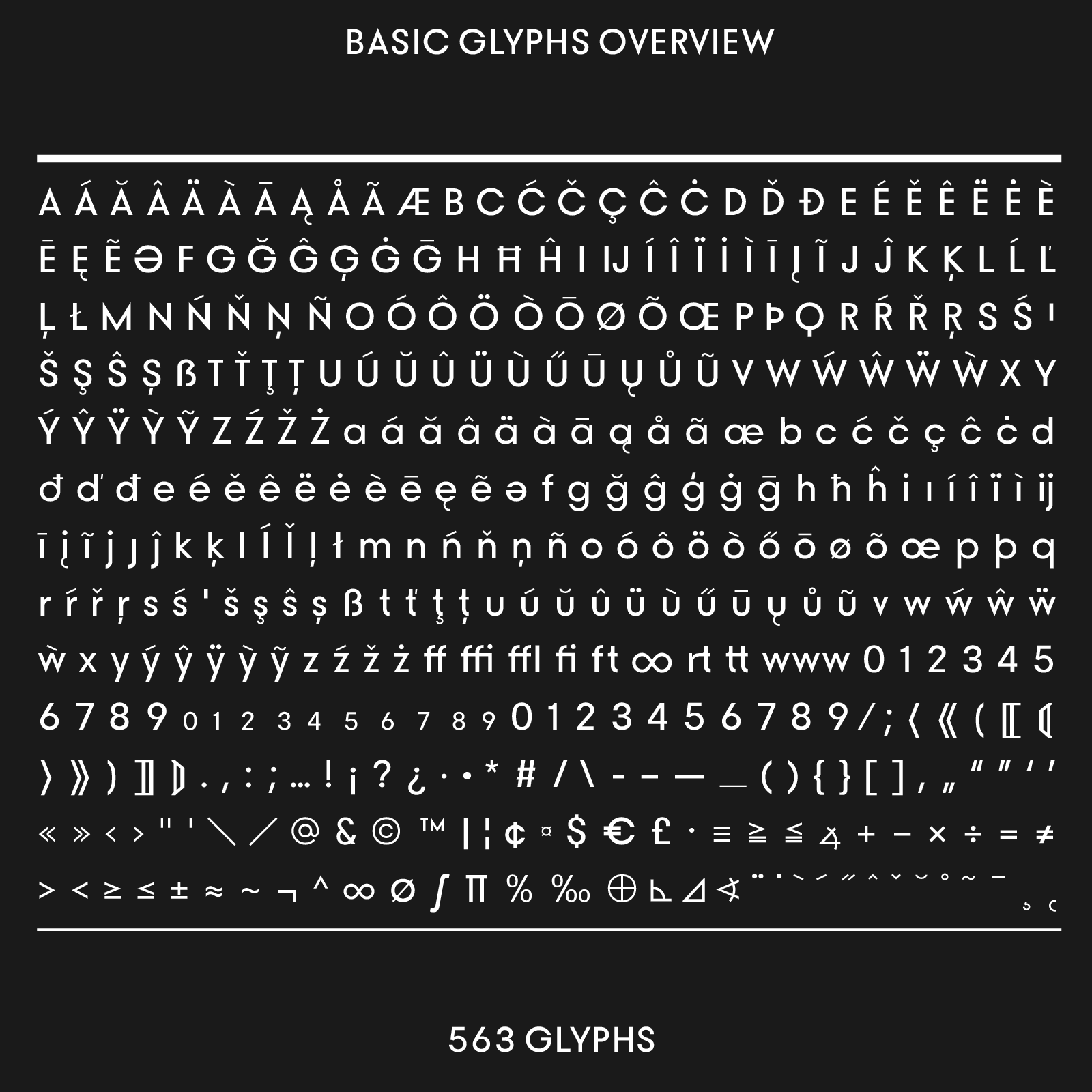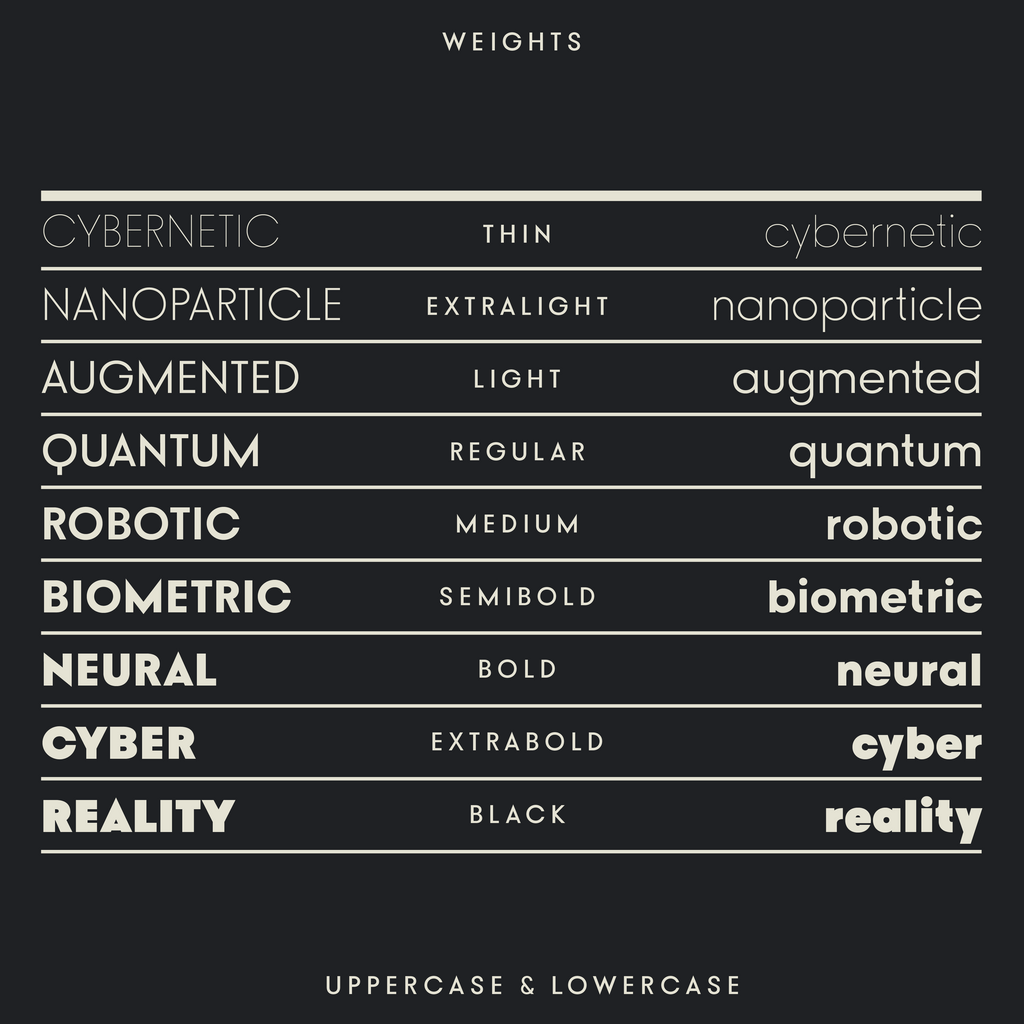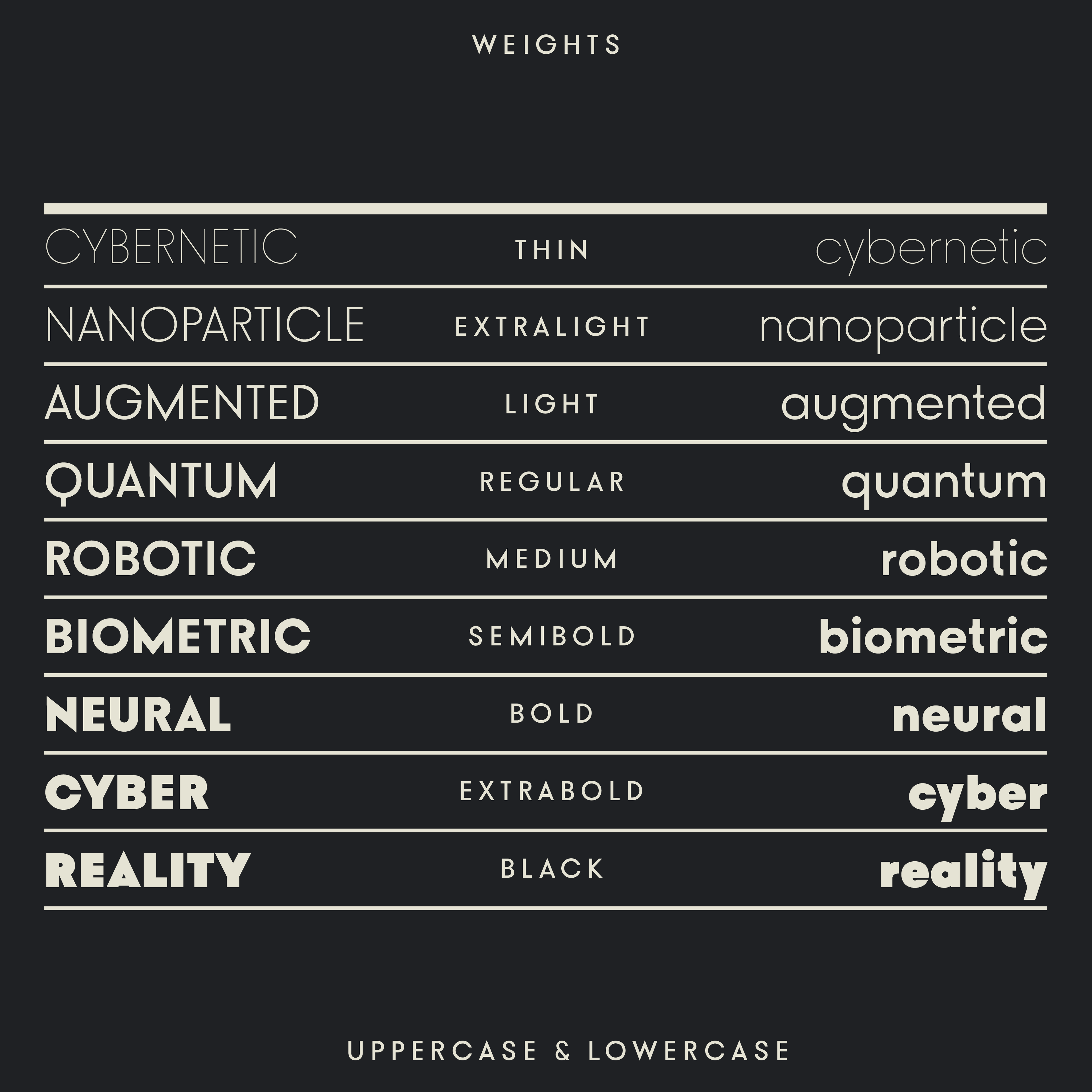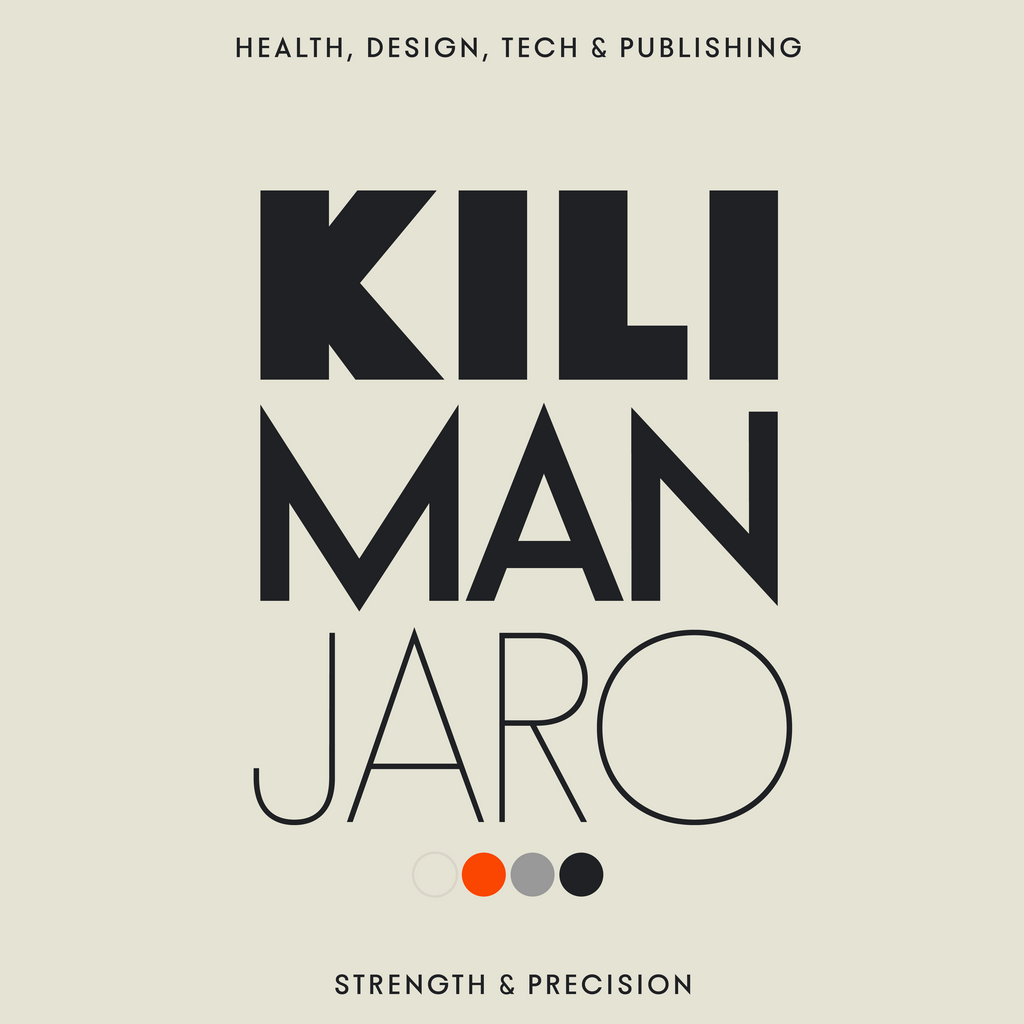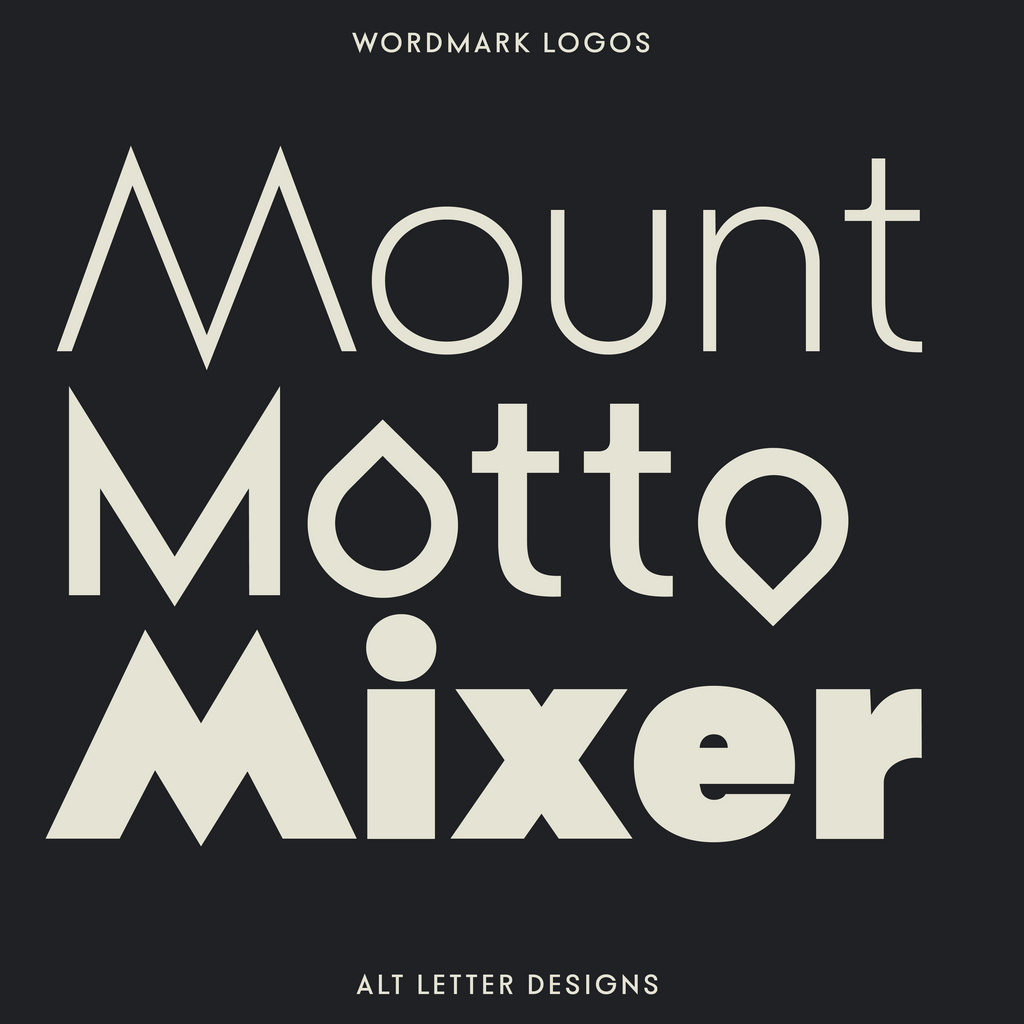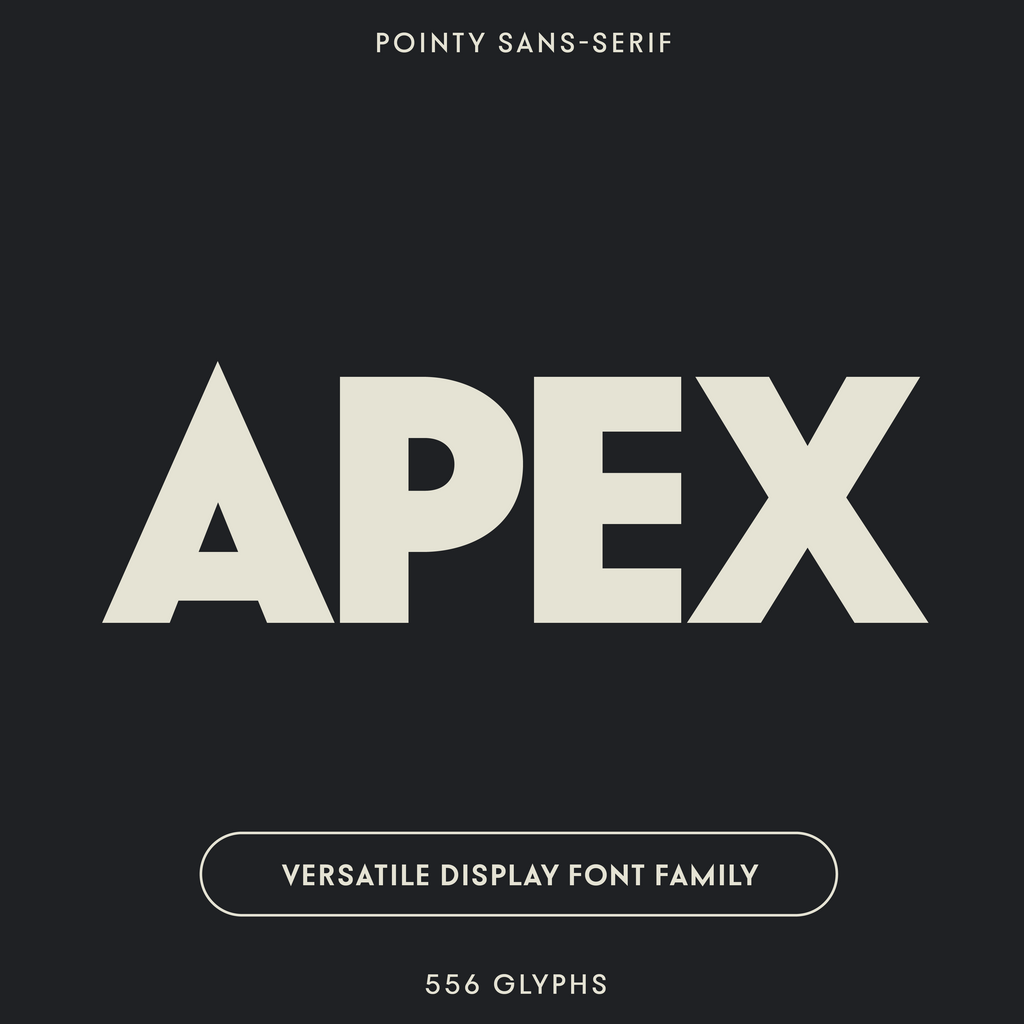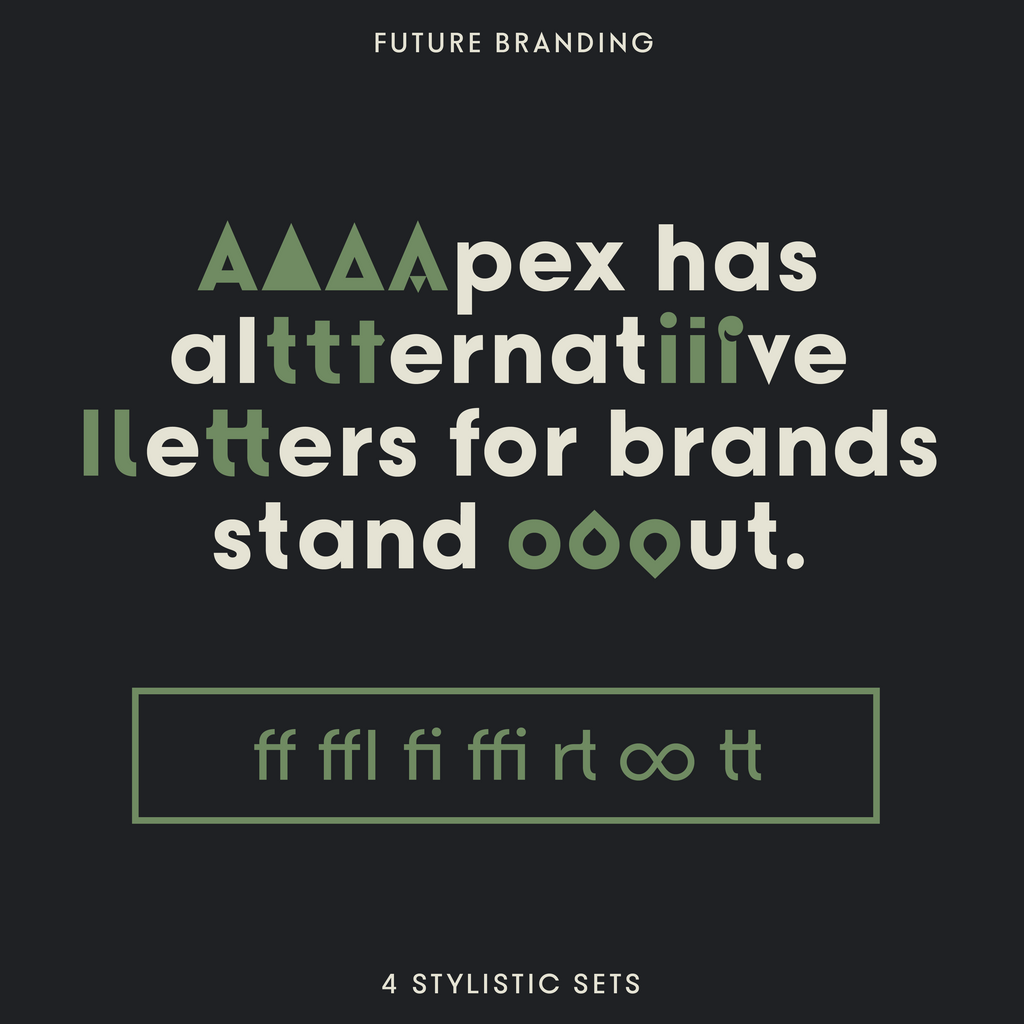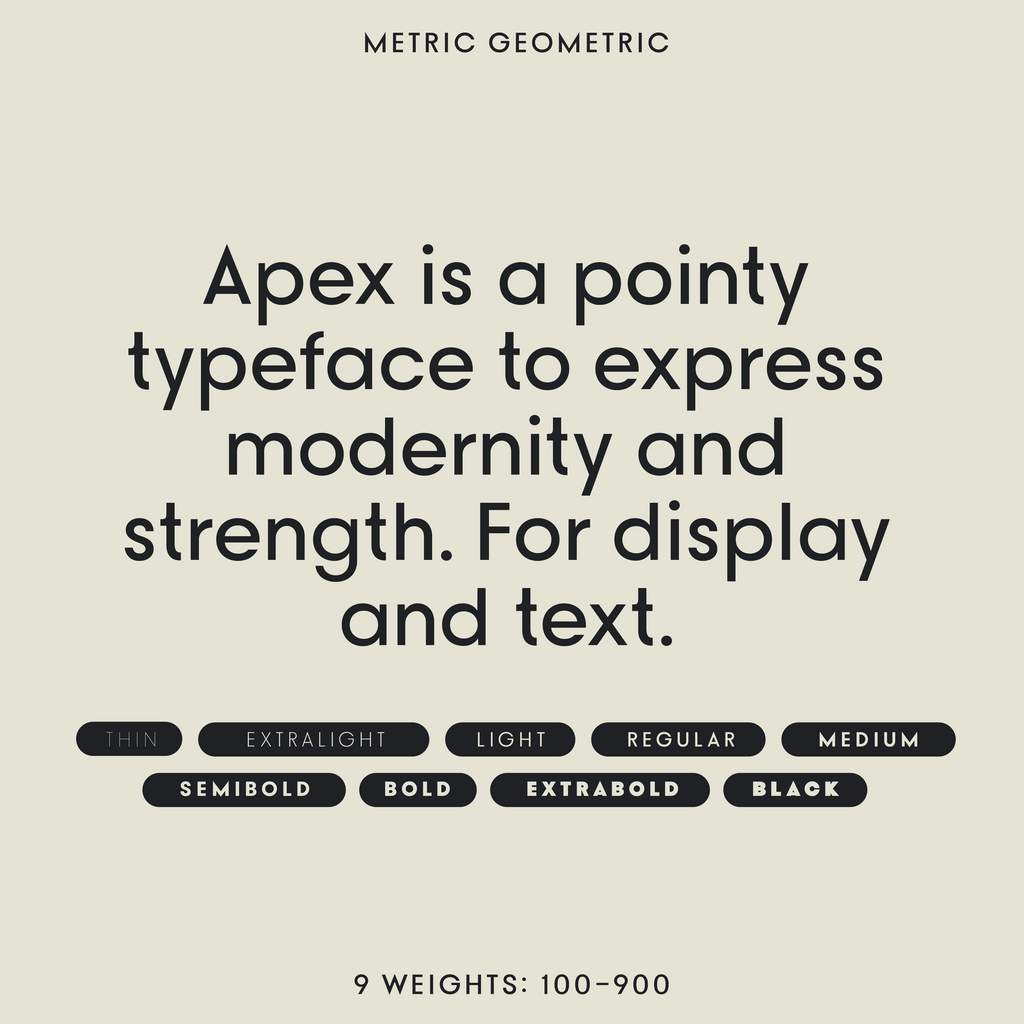
Apex—Bold and pointy sans-serif font with sharp alts
Apex is a pointy font with sharp tips for the letters A, K, M, N, W, and Z. Apex is a sans-serif typeface with a geometric frame. This font is perfect for branding with a focus on precision (lighter weights), and strength (bolder weights).
Apex has 9 available weights and alternate letters for more pointy letter options.